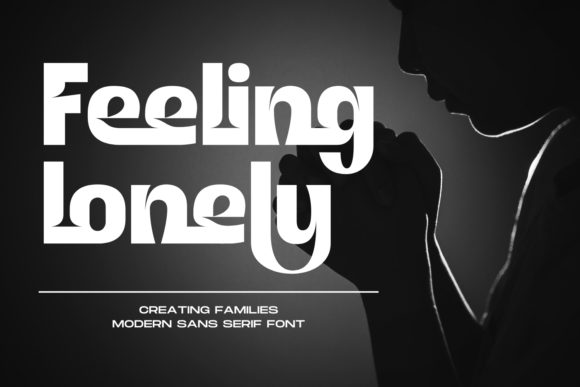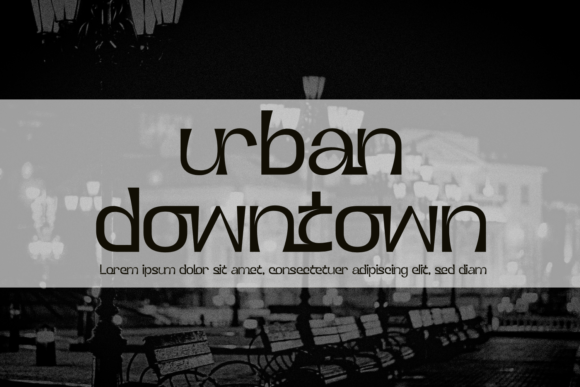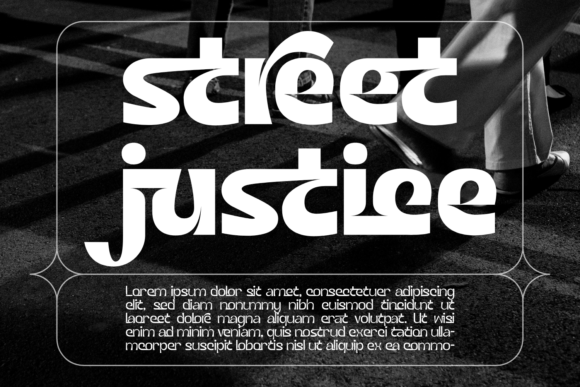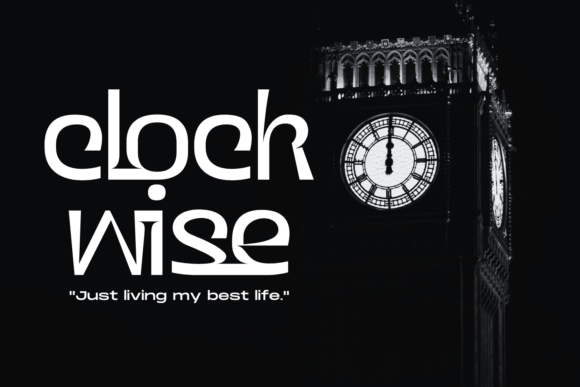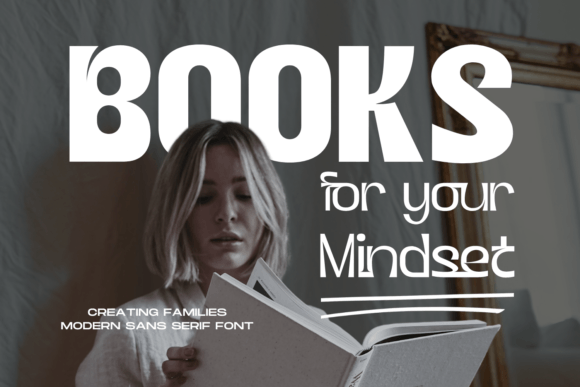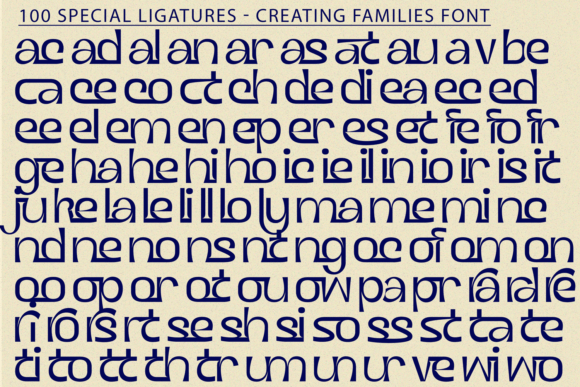
Designing a Lasting Impression
As designers, we’ve all been there – staring at a blank canvas, trying to craft the perfect visual identity for a brand. It’s a moment of pure creativity, where the right font can make all the difference. A well-chosen font can elevate a brand’s message, convey its values, and leave a lasting impression on its audience.
Enter Creating Families Font, a modern display typeface that’s designed to make a striking impact in both print and digital media. With its bold geometric forms and smooth, clean lines, this font is perfect for creating distinctive and memorable brand identities. Whether you’re working on a logo, website, packaging, or business card, Creating Families Font is a versatile design tool that’s sure to elevate your designs.
For designers, Creating Families Font is a valuable asset that offers a wide range of possibilities. Its OpenType features and support for multiple languages make it a go-to choice for creative projects of all kinds.
Key Features of Creating Families Font
- Font Family: Creating Families Font is a multi-script font family, designed to support various languages including Latin, Cyrillic, and Greek scripts.
- Character Set: The font family includes over 2,000 glyphs, covering a wide range of characters and symbols, making it suitable for various design applications.
- Unique Characteristics: Creating Families Font features a unique blend of modern and traditional design elements, with a focus on legibility and readability across various languages and scripts.
- Language Support: The font family supports multiple languages, including Latin, Cyrillic, Greek, and many others, making it an ideal choice for global design projects.
Designer Review: Creating Families Font
As a designer, I was excited to try out the Creating Families Font. My first impression was that it’s a beautiful, high-quality font that could elevate any design project.
- ✨ Beautiful typography: The font has a unique and elegant feel to it, making it perfect for projects that require a touch of sophistication.
- ✨ Consistency: The font is well-designed and consistent throughout, making it easy to use and navigate.
- ✨ Versatility: The font comes in a variety of styles and weights, making it suitable for a wide range of projects, from business cards to magazines.
- ⚠️ Limited language support: The font only supports a limited number of languages, which may be a drawback for designers working on international projects.
- ⚠️ Limited customization options: While the font has a range of styles and weights, it can be difficult to customize it to fit specific design needs.
Overall, I’m impressed with the Creating Families Font. While it has some limitations, its beautiful typography and versatility make it a great addition to any designer’s toolkit.
Creating Families Font: A Practical Application Guide
Tips for Getting the Most Out of the Creating Families Font
Here are some tips for getting the most out of the Creating Families Font:
- Use the font for titles and headings to add a personal touch.
- Combine the Creating Families Font with other fonts to create a unique look.
The Creating Families
Alternatives to Creating Families Font for Designers
Playfair Display is an elegant, high-end serif font that is perfect for luxury brands and high-end designs. It features intricate details and swashes, making it ideal for creating a sophisticated and luxurious feel. Compared to Creating Families Font, Playfair Display is more formal and luxurious, making it a great choice for high-end brands and designers who want to create a sense of opulence.
Q: Can I customize the Creating Families Font for a specific project or brand?
Yes, the Creating Families Font can be customized for a specific project or brand. You can use font editing software to modify the font’s characteristics, such as its weight, style, and spacing. However, please note that significant modifications may affect the font’s original intent and style. It’s recommended to consult with a professional font designer or typographer to ensure that the customized font meets your design needs and maintains its intended quality.